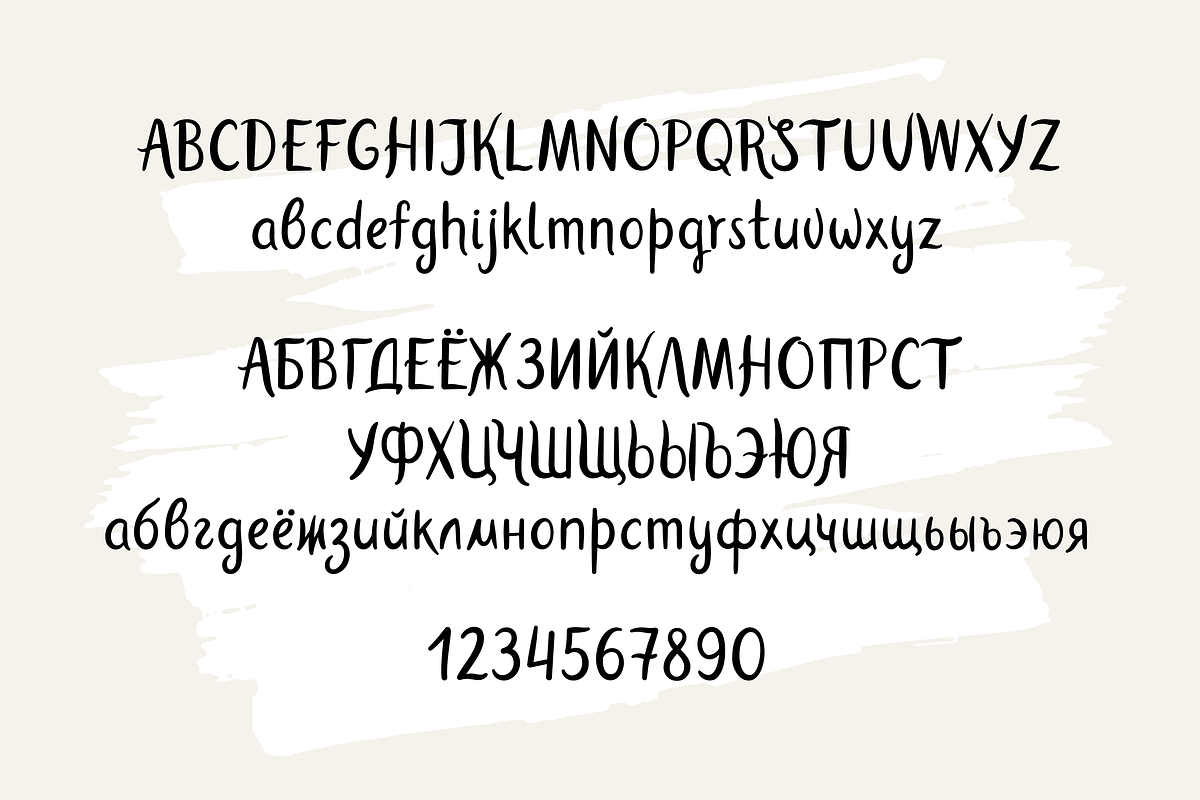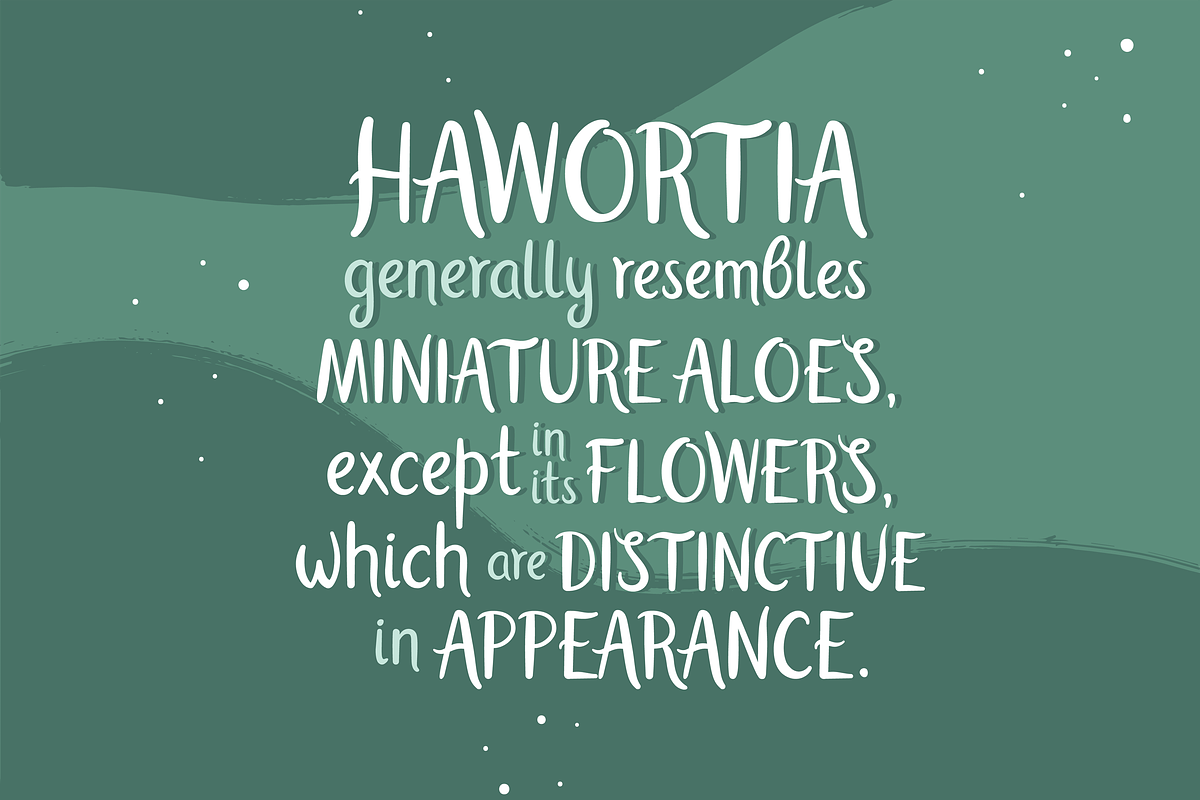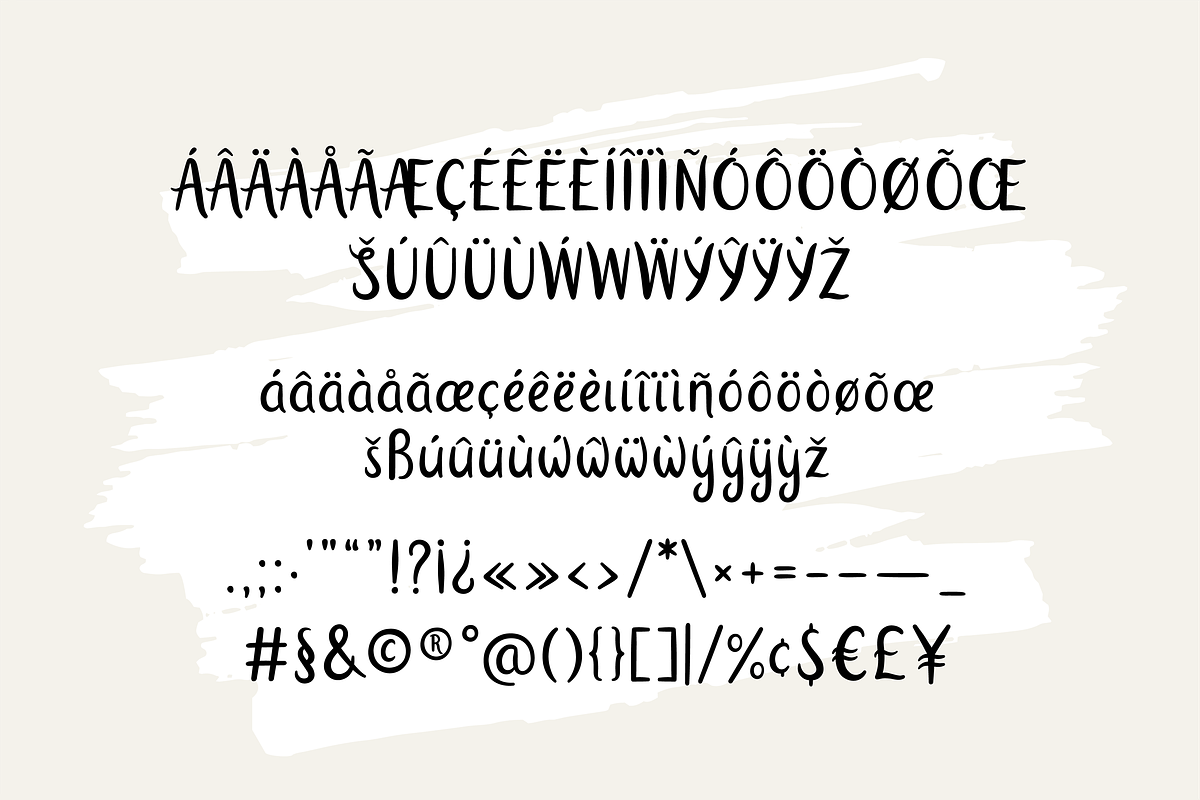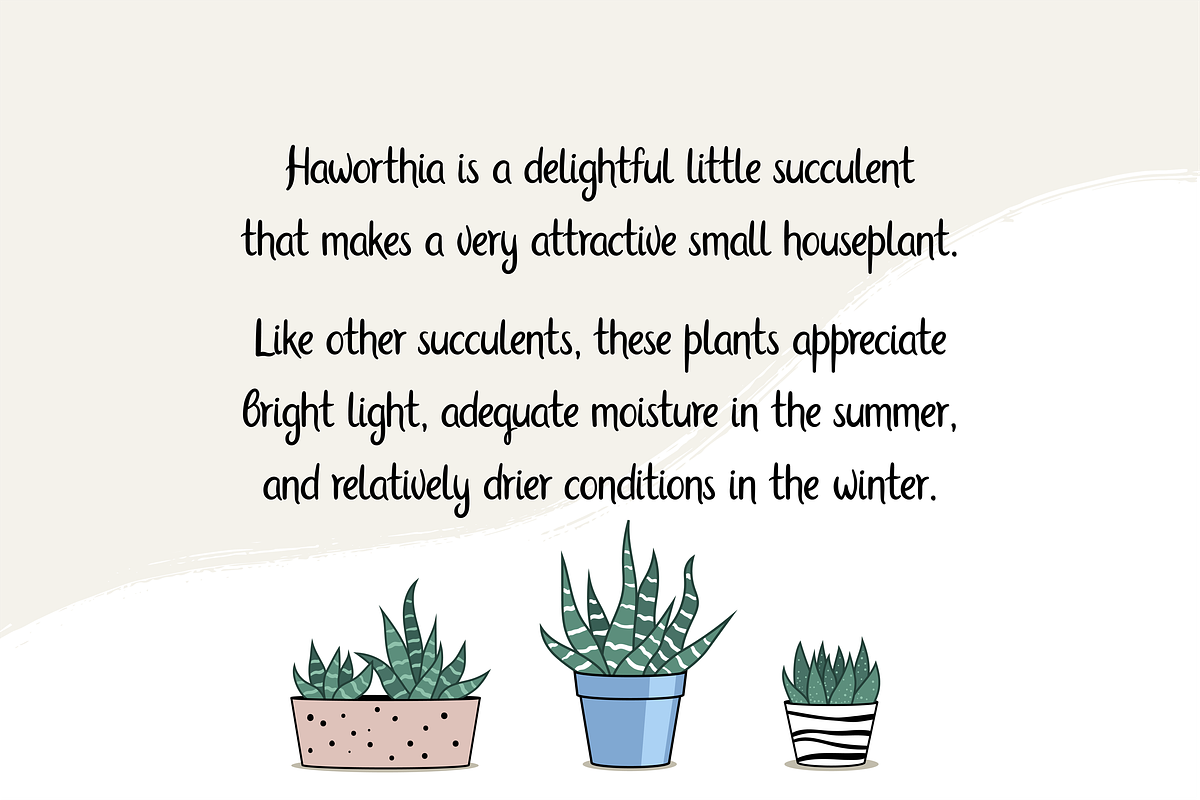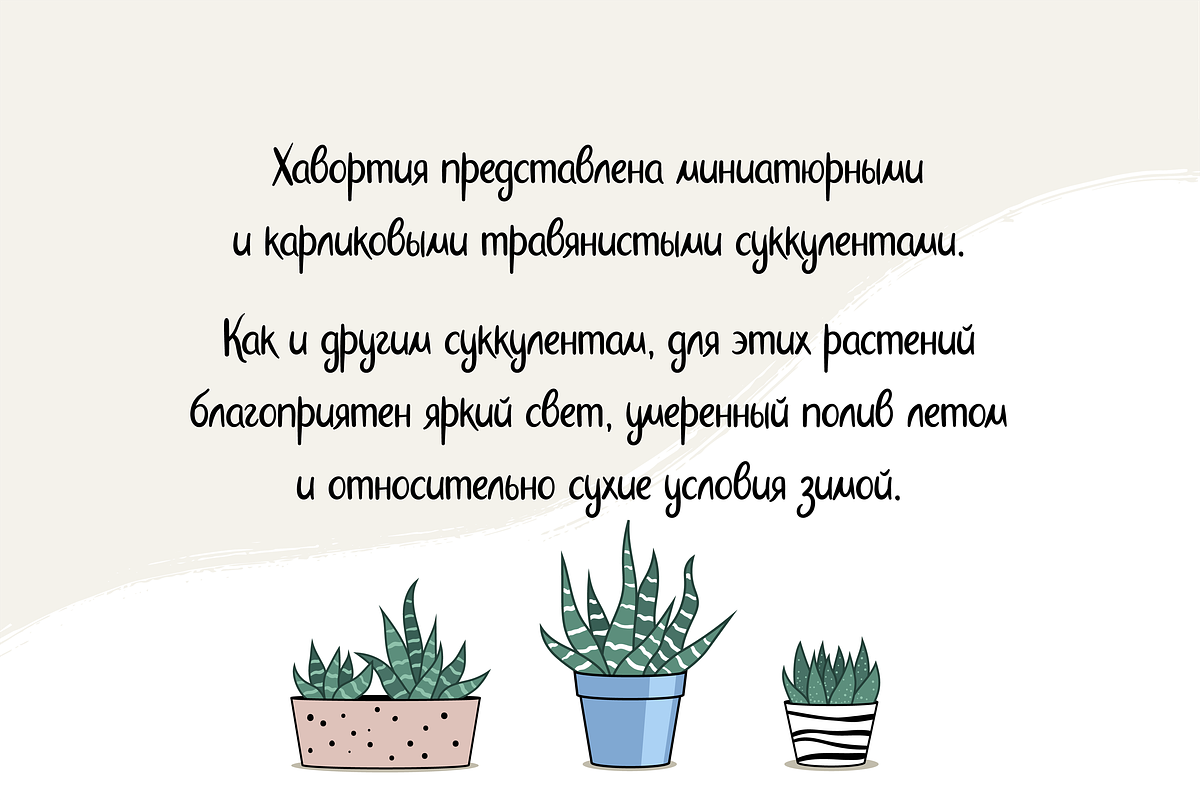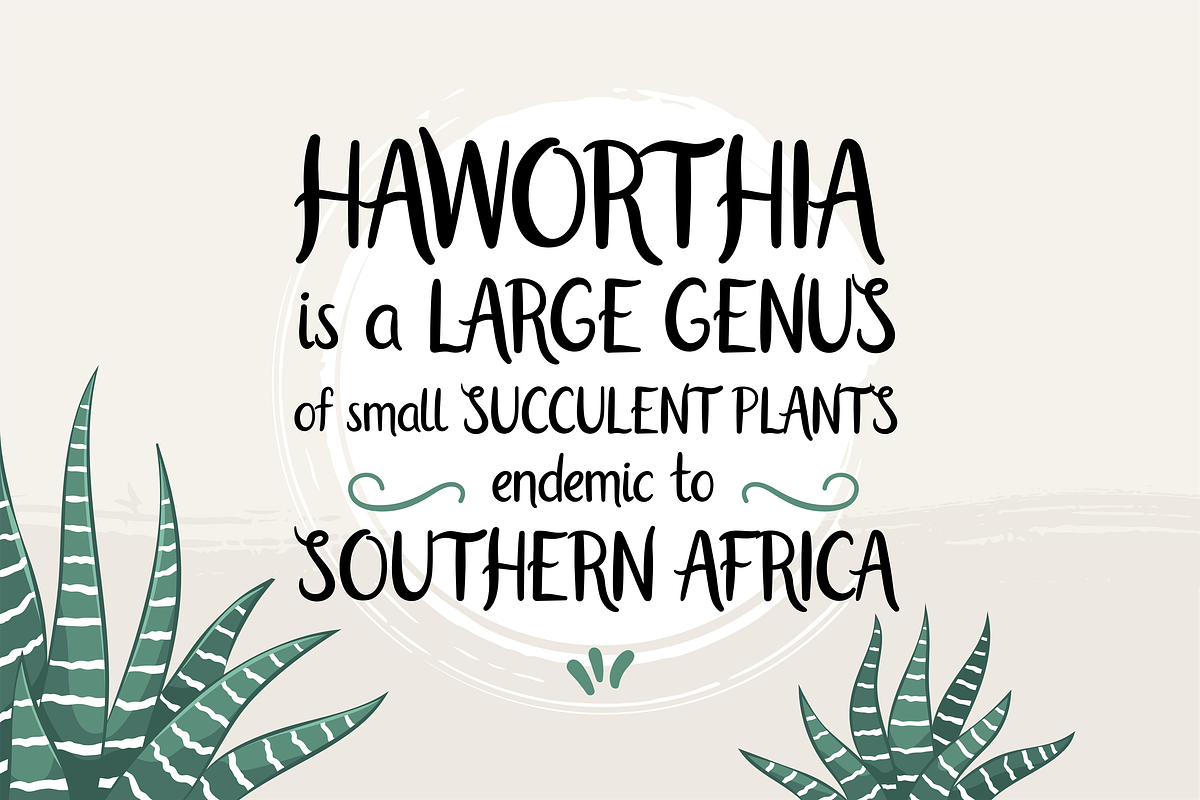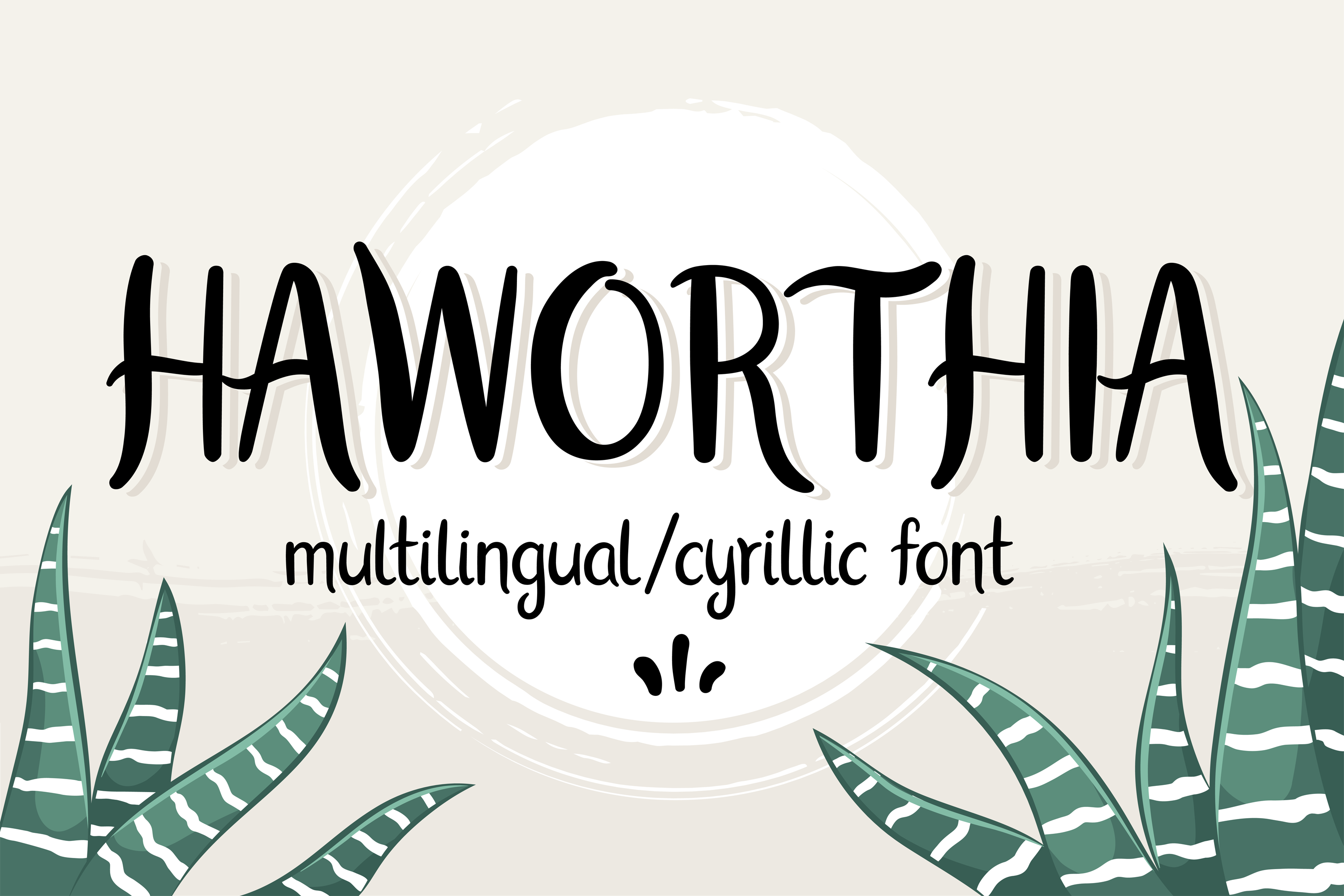
Haworthia. Multilingual Script Font.
Cute handwritten font.
Haworthia comes with:
- standard punctuation & numbers
- special accents & characters for most of the European languages
- cyrillic typeface